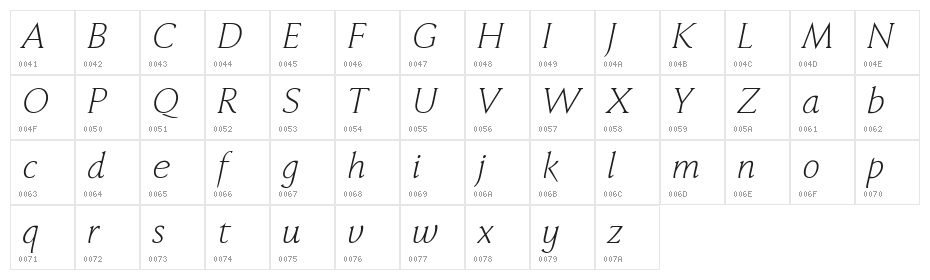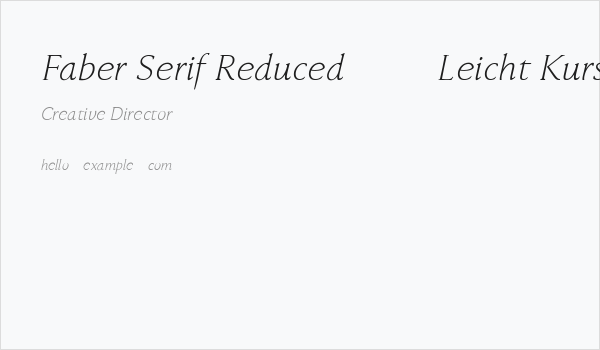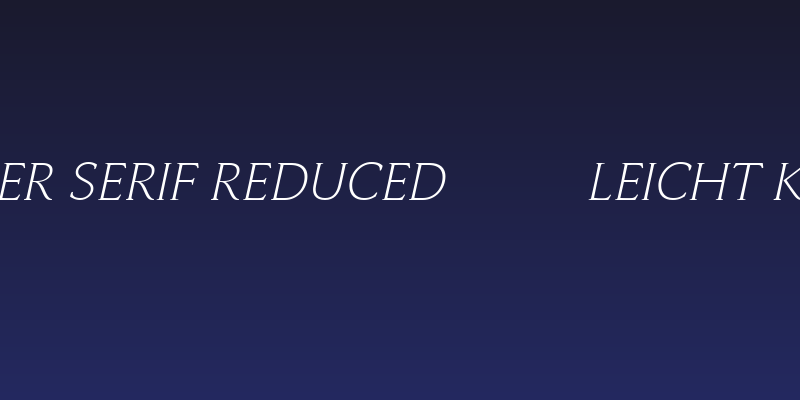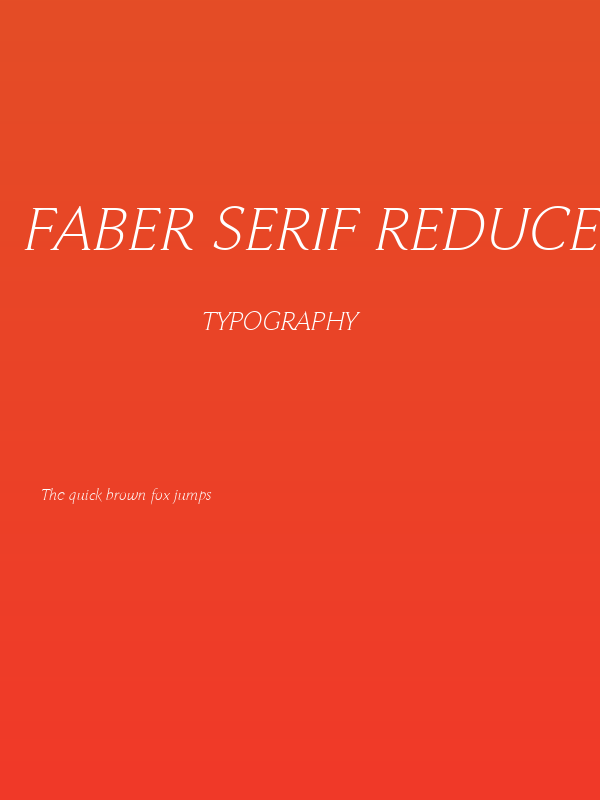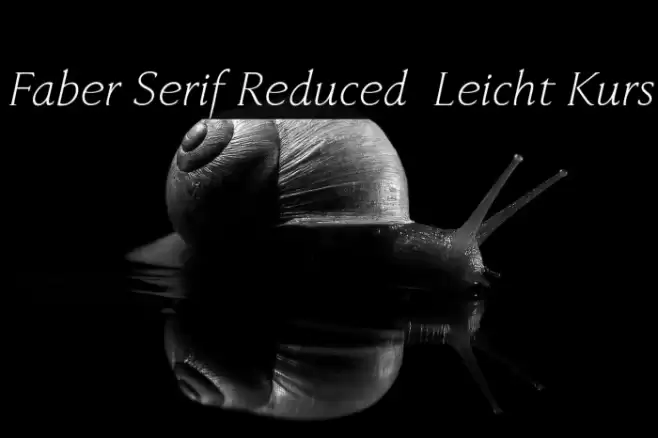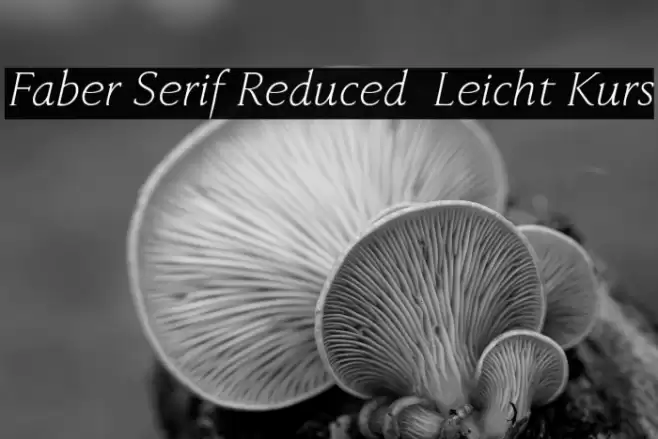
Faber Serif Reduced 46 Leicht Kurs Font
Faber Serif Reduced 46 Leicht Kurs Description
This elegant serif font features a light and graceful design with a slight italic slant, giving it a sophisticated and refined appearance. The characters are well-proportioned, with smooth curves and delicate serifs that add a touch of classic elegance. The font maintains a consistent stroke width, providing a harmonious and balanced look. Its legibility is enhanced by the clear distinction between each letterform, making it suitable for both display and text purposes. The overall style exudes a timeless charm, perfect for projects that require a touch of sophistication.
| Proposed Projects | Ideal for wedding invitations, luxury branding, editorial design, and elegant packaging. |